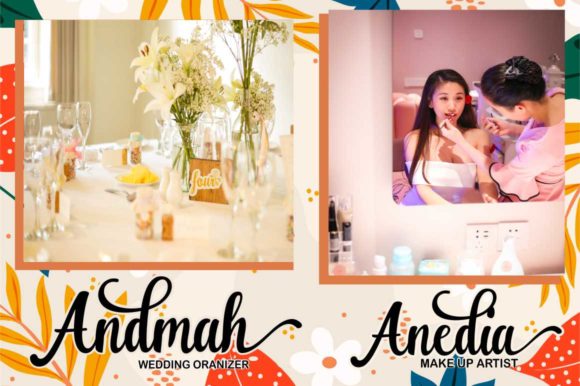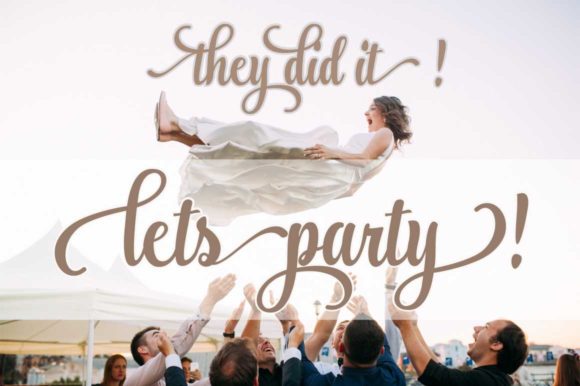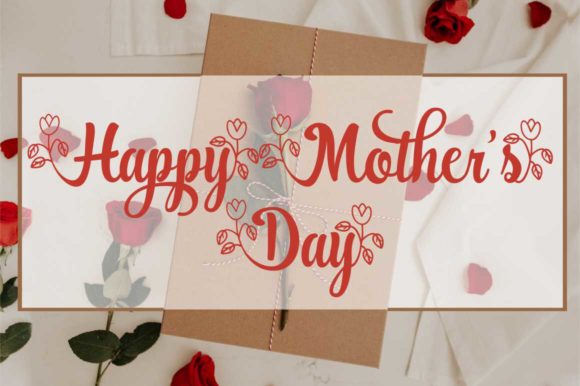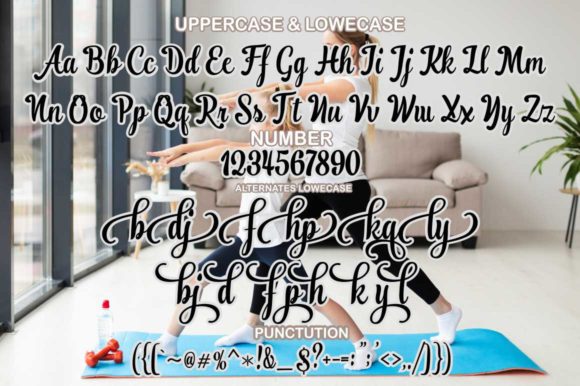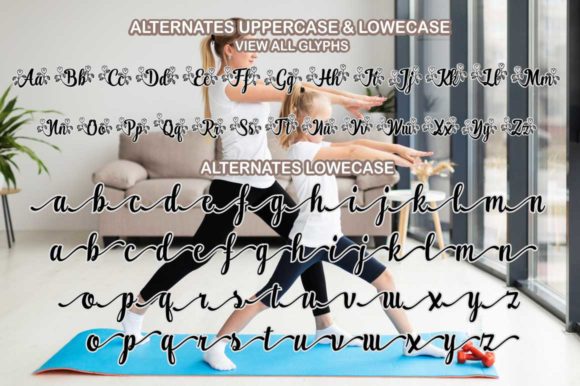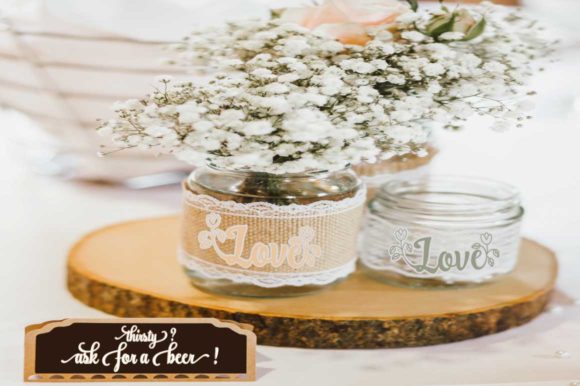
Introduction to Ranykinaya Font
Ranykinaya is inspired by classic typography and brings its own unique style to any design project.
This font is the perfect fit for all of your logos, branding, social media, and crafty DIY projects .
Key Features of Ranykinaya Font
Why Choose Ranykinaya Font?
Ranykinaya Font offers exceptional quality and versatility, making it a valuable addition to your design toolkit. Whether you’re creating for personal projects or commercial use, Ranykinaya Font delivers professional results.